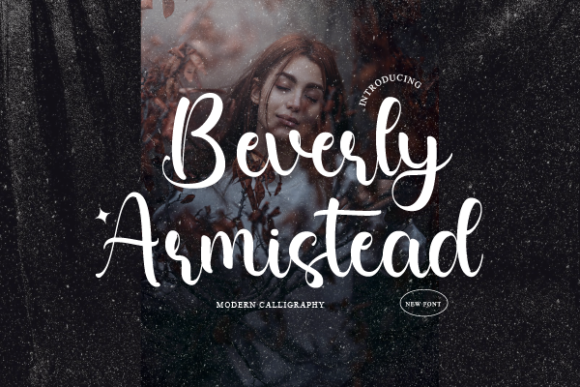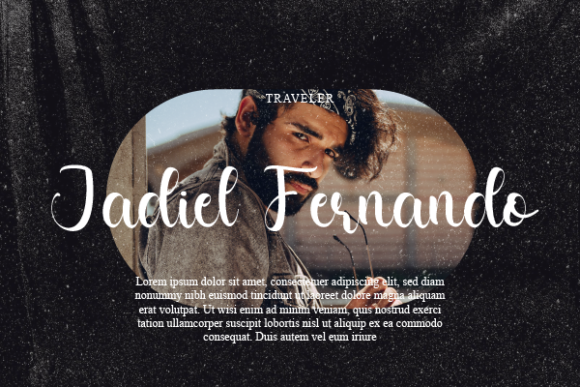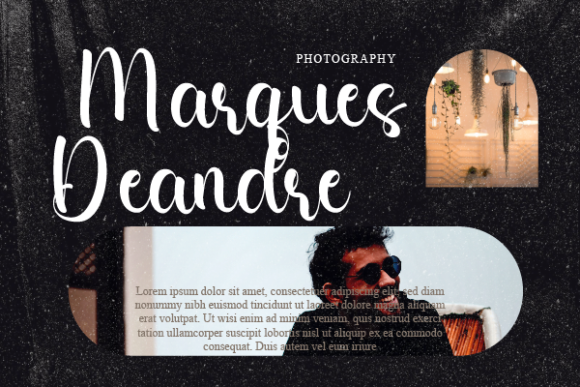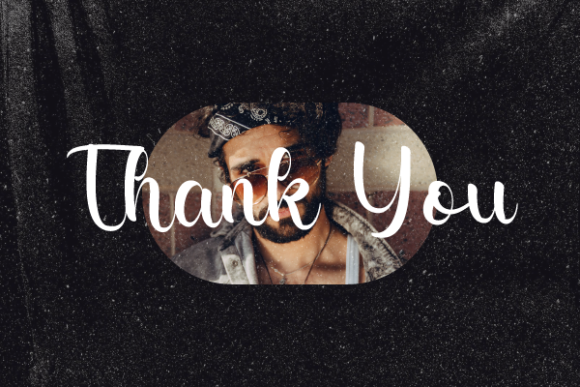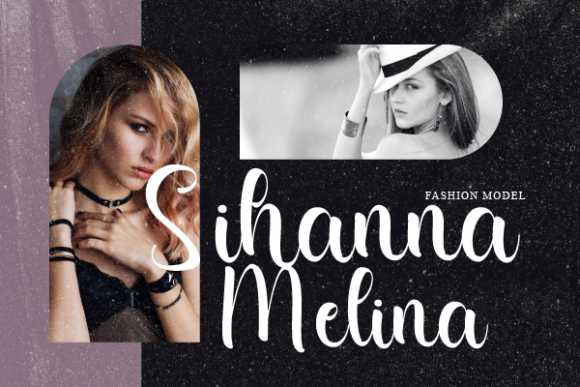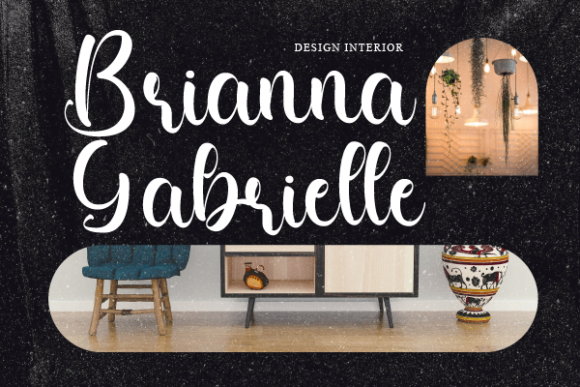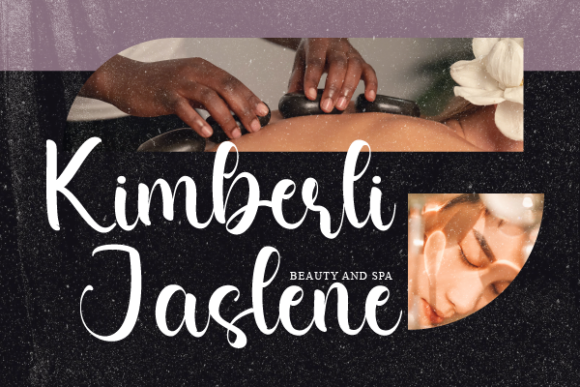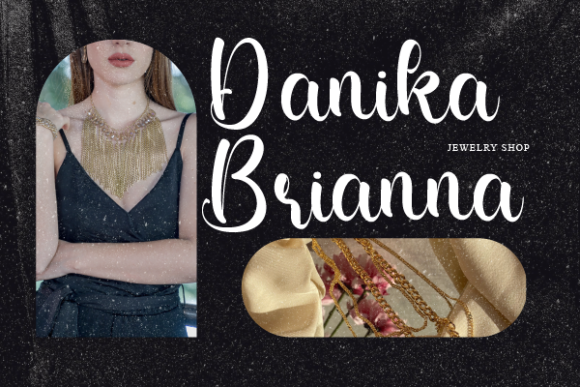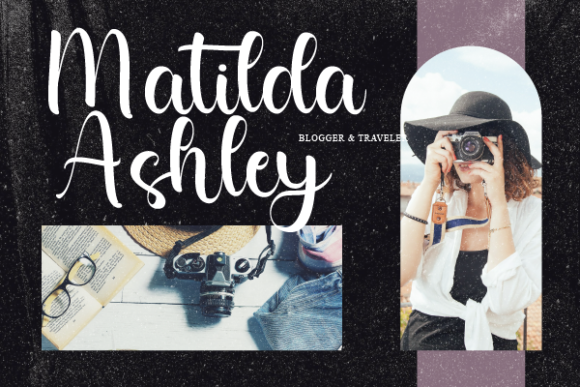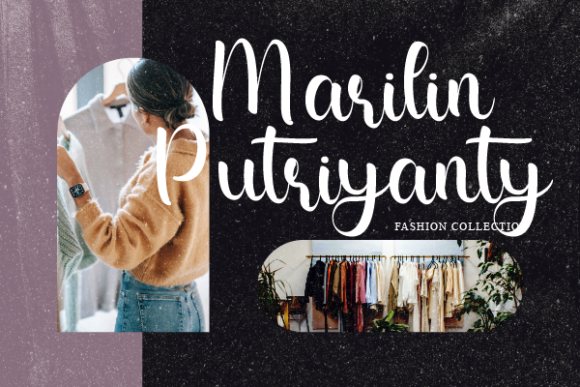
Beverly Armistead Font
About Beverly Armistead Font
“Beverly Armistead” emerges as a font that embodies style and delicate sophistication. With its clean, thin, and smooth vibe, it becomes a dynamic addition to any design you choose to embellish with its presence. This font’s inherent allure is set to captivate, making it a hit for a diverse range of creative projects.
Visualize “Beverly Armistead” as a stroke of refined elegance, each character meticulously crafted to create a visual symphony of style and sophistication. Its clean lines and delicate curves elevate your projects, transforming them into visual gems that resonate with subtlety and charm. As you integrate this font into your creations, you’ll embark on a journey where your concepts evolve into captivating visual narratives.
Beyond its visual allure, “Beverly Armistead” captures an essence of authenticity and creative refinement. Its script nature adds a personal touch, turning your designs into more than just visuals – they become expressions of artistry and sophistication.
“Beverly Armistead” stands as a versatile companion in your creative journey. Its adaptability ensures seamless harmony with various styles, themes, and intentions. Whether you’re adding a touch of chic elegance to a logo, enhancing the beauty of your branding, or bringing a sophisticated flair to your design projects, this font amplifies the resonance of your message.
In a world where design communicates volumes through finesse and aesthetics, “Beverly Armistead” becomes your medium for crafting designs that evoke emotions and leave a lasting impact. Let its clean and smooth vibe be the artistic flourishes that enhance your creations, infusing them with a touch of timeless style. Embrace the stylish allure of “Beverly Armistead” and watch as it transforms your projects into captivating showcases of artistic excellence, resonating deeply with all who engage with them.